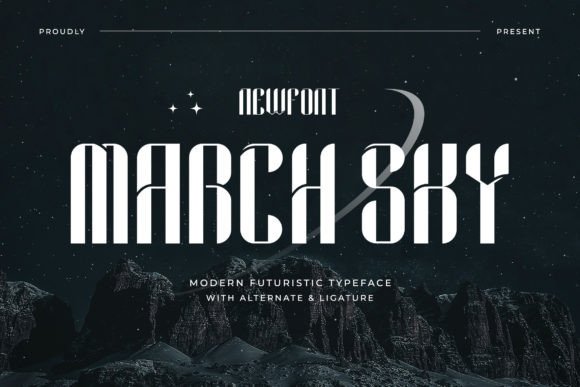
In a world saturated with monotonous fonts, March Sky Font emerges as a beacon of innovation, a testament to creativity, crafting a distinctive visual experience. Picture this: a modern CV that radiates with boldness, a gaming interface that transports you to uncharted territories, or a futuristic novel that leaps off the page, captivating your imagination. With March Sky Font, these visions become reality, a testament to its versatility and transformative power.
Embrace the allure of modernity with March Sky Font, a display font that shatters the boundaries of the ordinary, propelling your designs to the forefront of contemporary aesthetics. Its sleek lines and sharp angles evoke a sense of progress, innovation, and boundless possibilities. Dive into the depths of sci-fi themes, where March Sky Font becomes the conduit to distant galaxies, unexplored planets, and awe-inspiring space adventures. It's the font that elevates your creations to the realm of the extraordinary, leaving an indelible mark on your audience's minds.
Crafted by the visionary minds at TypeFactory, March Sky Font embodies the essence of creativity, innovation, and the relentless pursuit of excellence. Their passion for typography shines through in every curve and stroke, ensuring that March Sky Font not only meets your expectations but exceeds them, empowering you to unleash your imagination and create designs that resonate with audiences on a profound level.
So, embark on a journey of endless possibilities with March Sky Font. Let your imagination soar as you craft captivating CVs that command attention, design gaming interfaces that transport players to immersive virtual worlds, and author futuristic stories that ignite the readers' imaginations. March Sky Font is more than just a font; it's a gateway to a world of creativity, innovation, and limitless possibilities. Seize this opportunity to elevate your designs and leave a lasting impression on your audience.